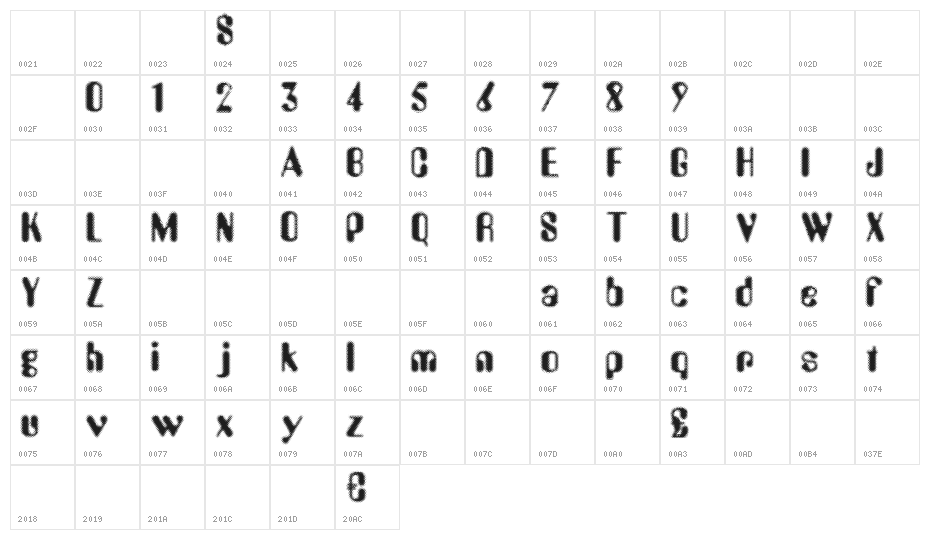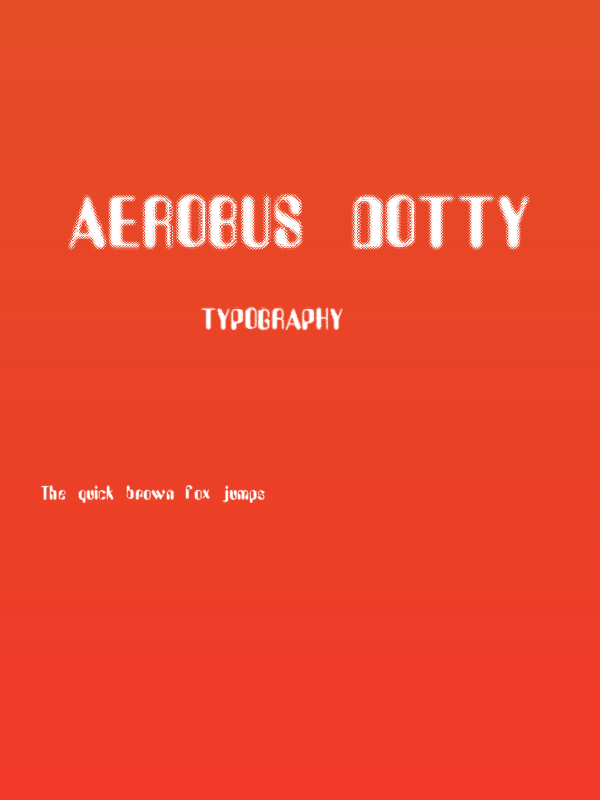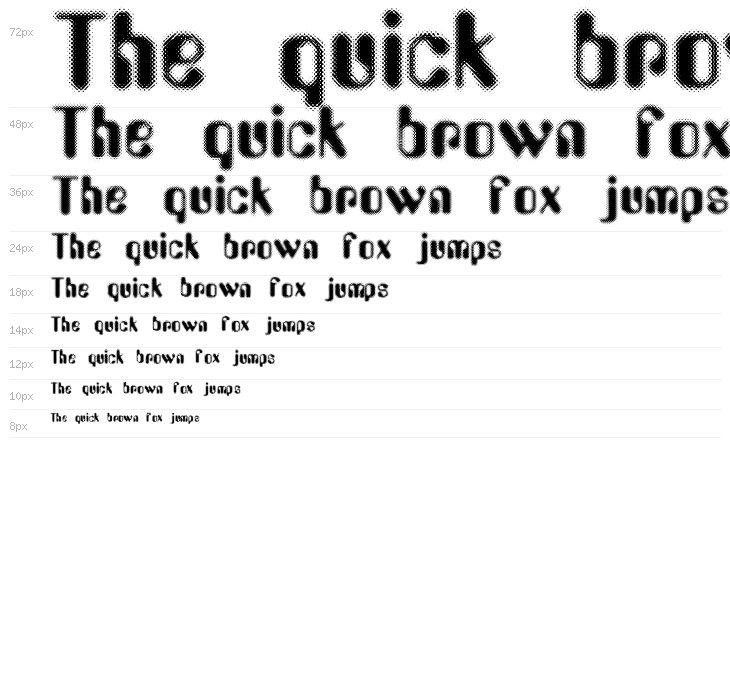
Aerobus Dotty Font
Aerobus Dotty Description
This font features a unique dotted pattern that creates a sense of movement and texture. The uppercase and lowercase letters are bold and rounded, with a playful yet structured appearance. The numbers and special characters maintain this cohesive style, making it versatile for various design needs. The font's distinct dot pattern adds a modern and dynamic touch, making it stand out in any project. Its boldness and decorative elements make it suitable for eye-catching designs, while the rounded edges provide a friendly and approachable feel.
| Proposed Projects | Ideal for posters, branding, packaging, and any project requiring a bold, modern aesthetic. |